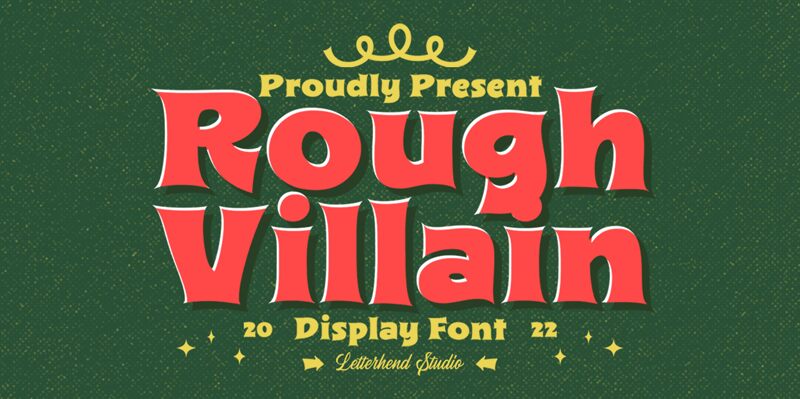
Rough Villain, designed by Letterhend Studio, is an extra-bold display font with a fun and playful aesthetic.
Its standout look makes it ideal for projects aimed at children, such as storybooks or child-themed designs. However, its versatility extends beyond that and can also be used in various formal applications. The font is suitable for invitations, labels, logos, magazines, books, greeting cards, wedding cards, packaging design, fashion-related projects, makeup products branding, stationery items like notebooks or notepads. Additionally, it works well in novel covers or any type of advertising where you want to grab attention with a bold and eye-catching typography.
With its semi-expanded width and bold weight characteristics, Rough Villain adds personality to any design project!